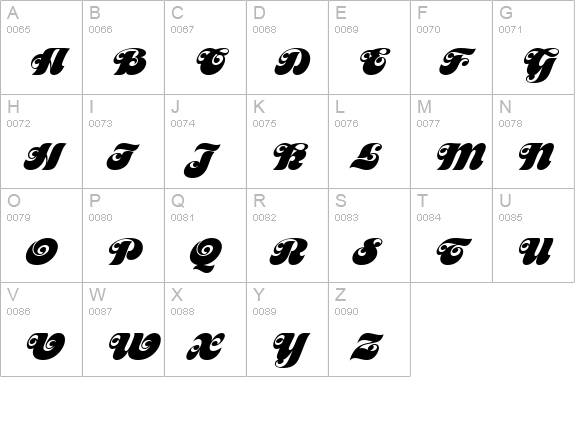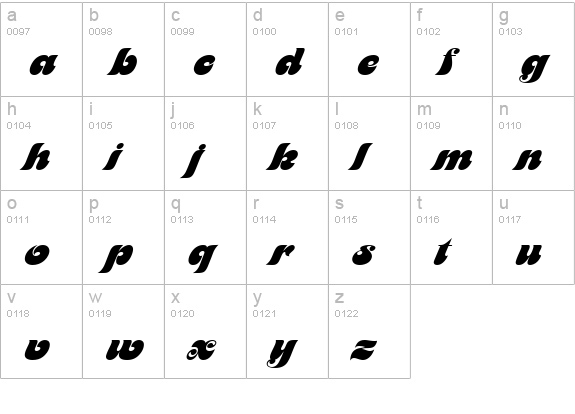
MotterFemD Font Details
MotterFemD font is a stylish and modern typeface that exudes elegance and sophistication. Its sleek lines and delicate curves make it perfect for a wide range of design projects, from logos to branding materials to invitations. The font's unique design sets it apart from other typefaces, giving your text a distinct and memorable look. What sets MotterFemD font apart is that it is not only visually stunning, but it is also free to download. Yes, you read that right - this beautiful font is freely available to download at FontsMarket.com. So whether you're a designer looking to add a touch of class to your work or someone who simply appreciates good typography, MotterFemD font is a must-have in your font collection. Download it today and elevate your designs to the next level!